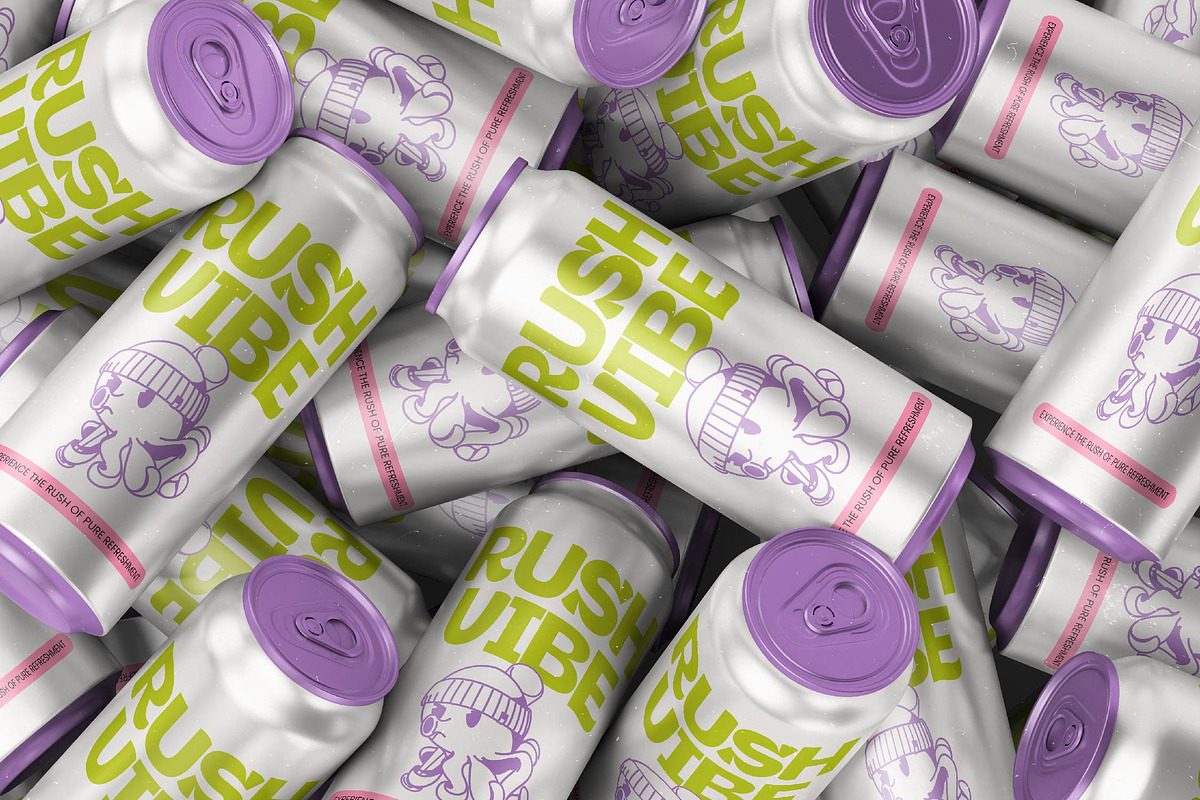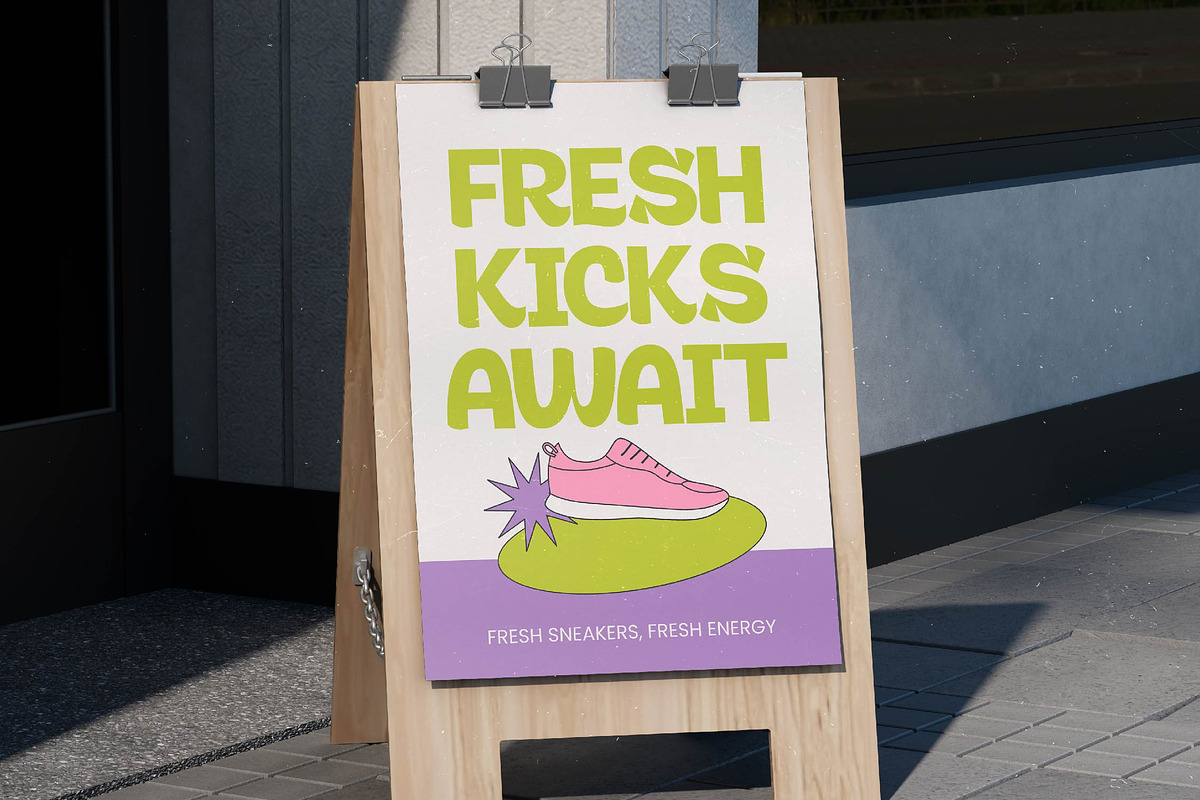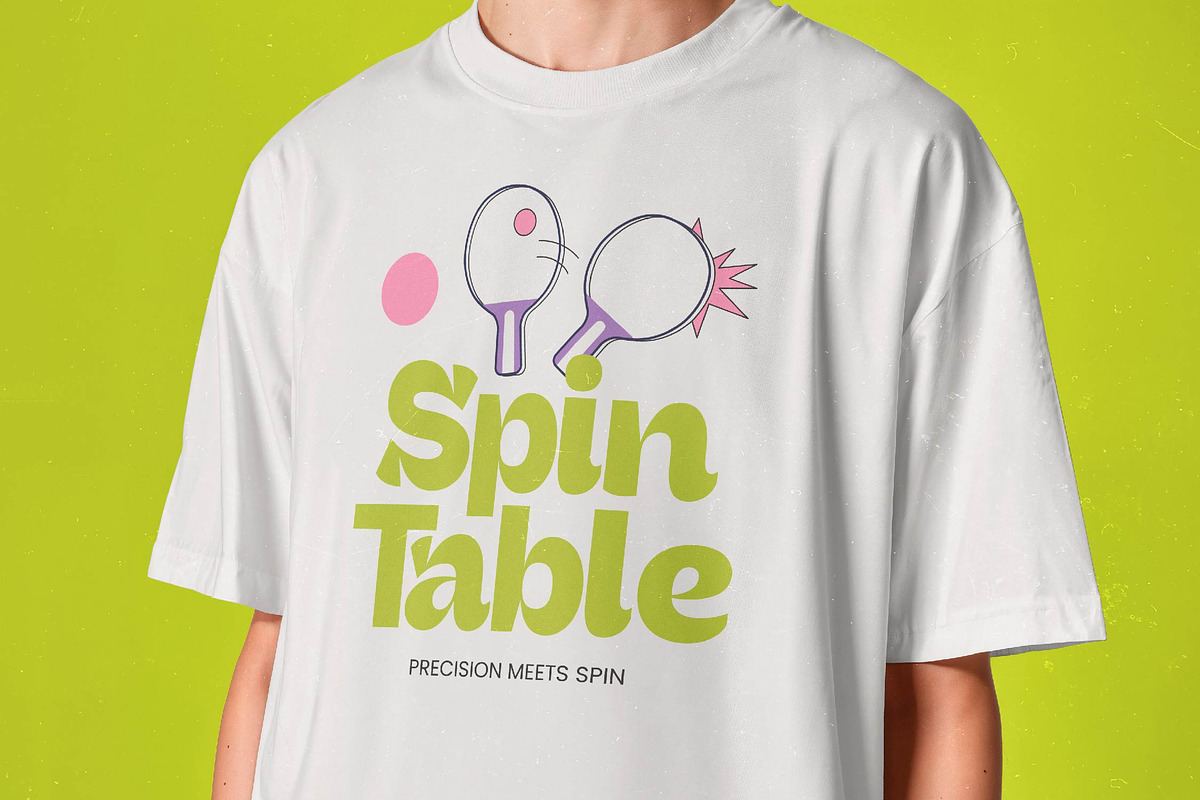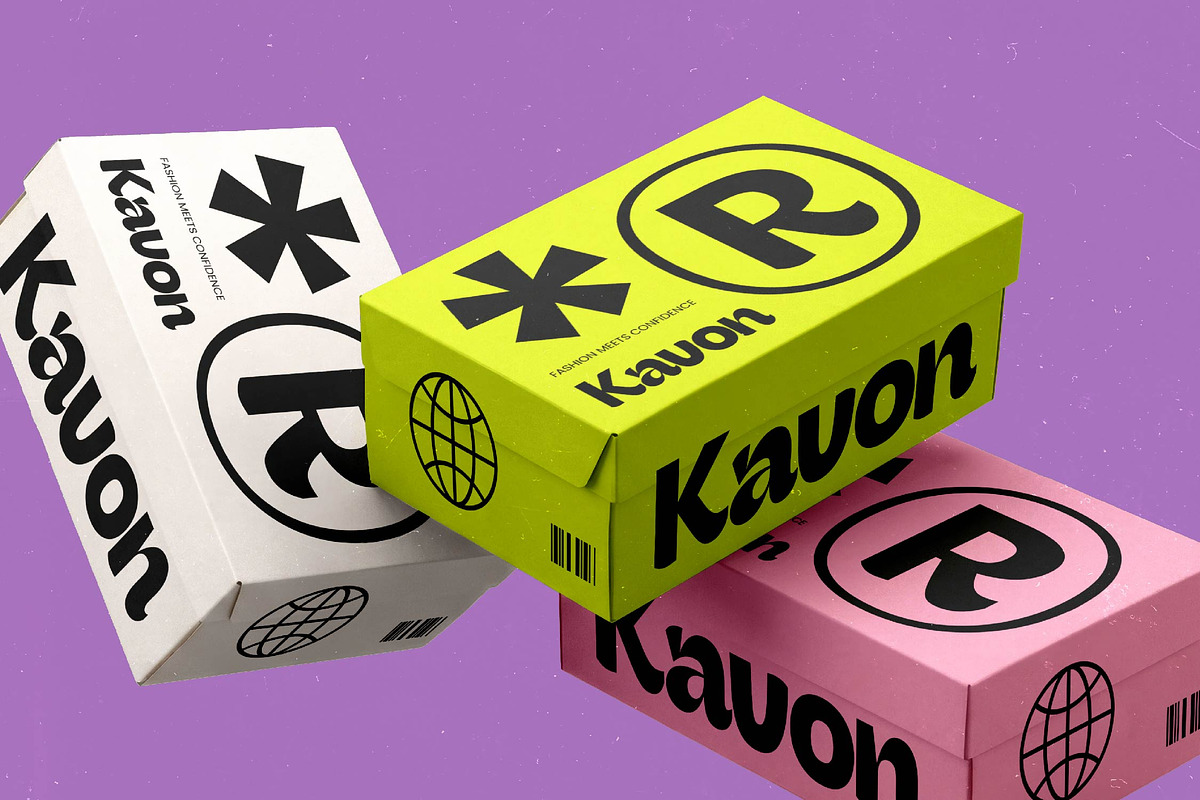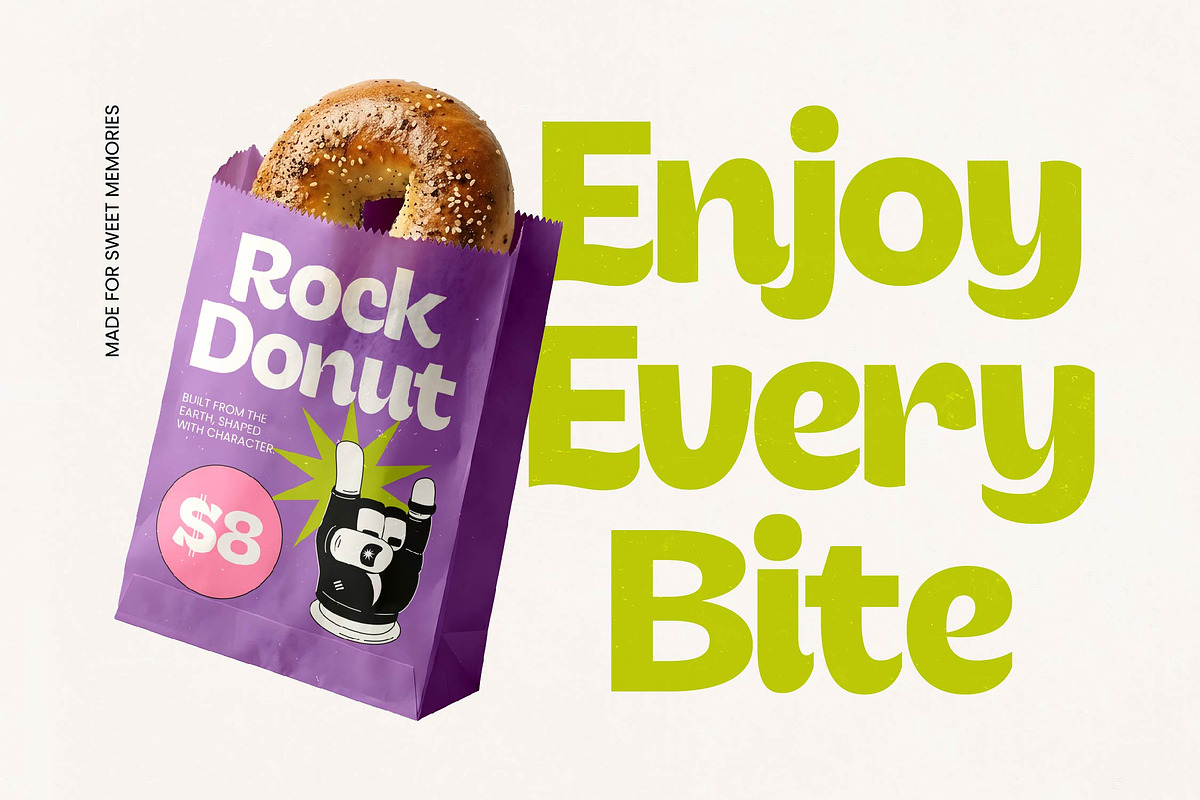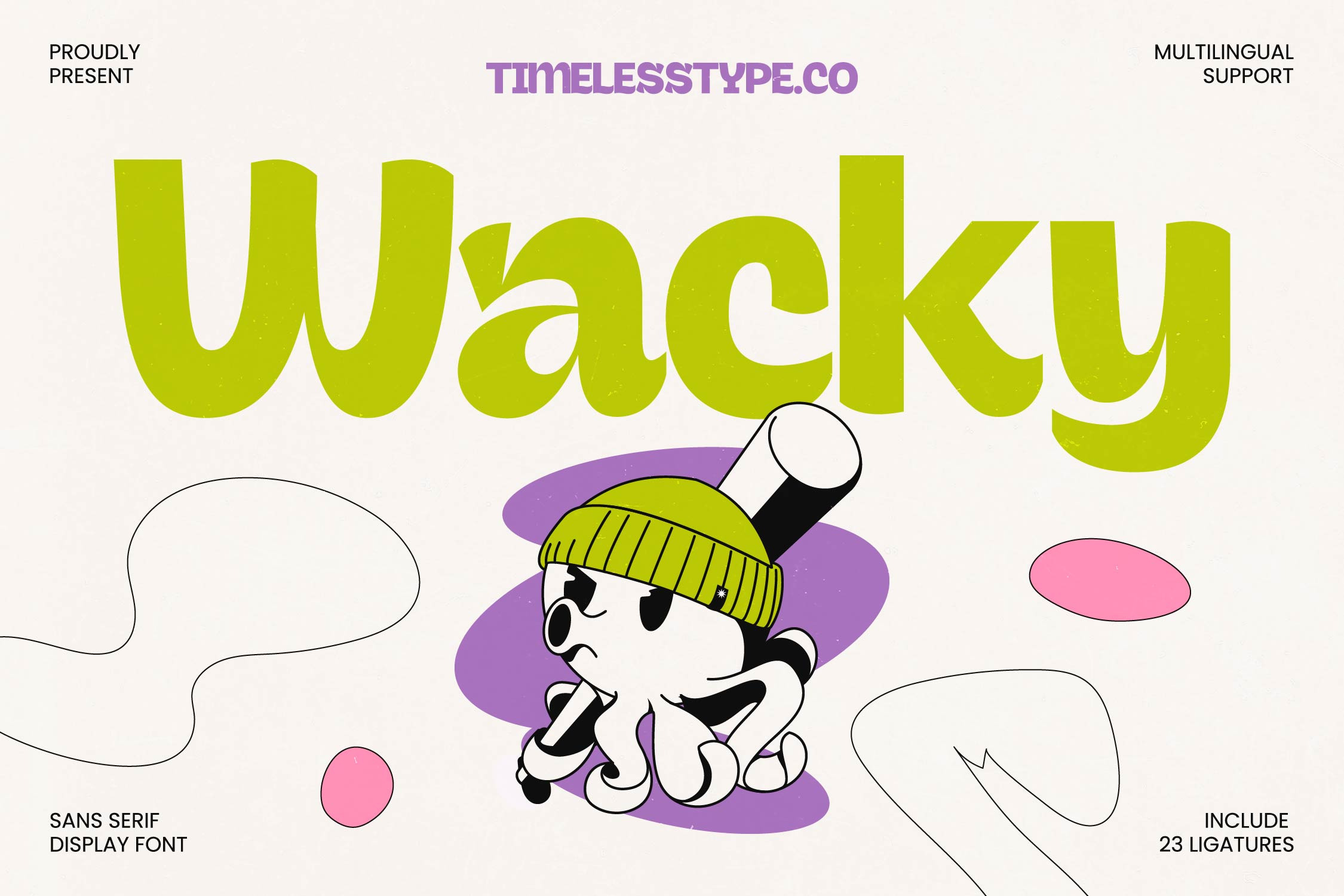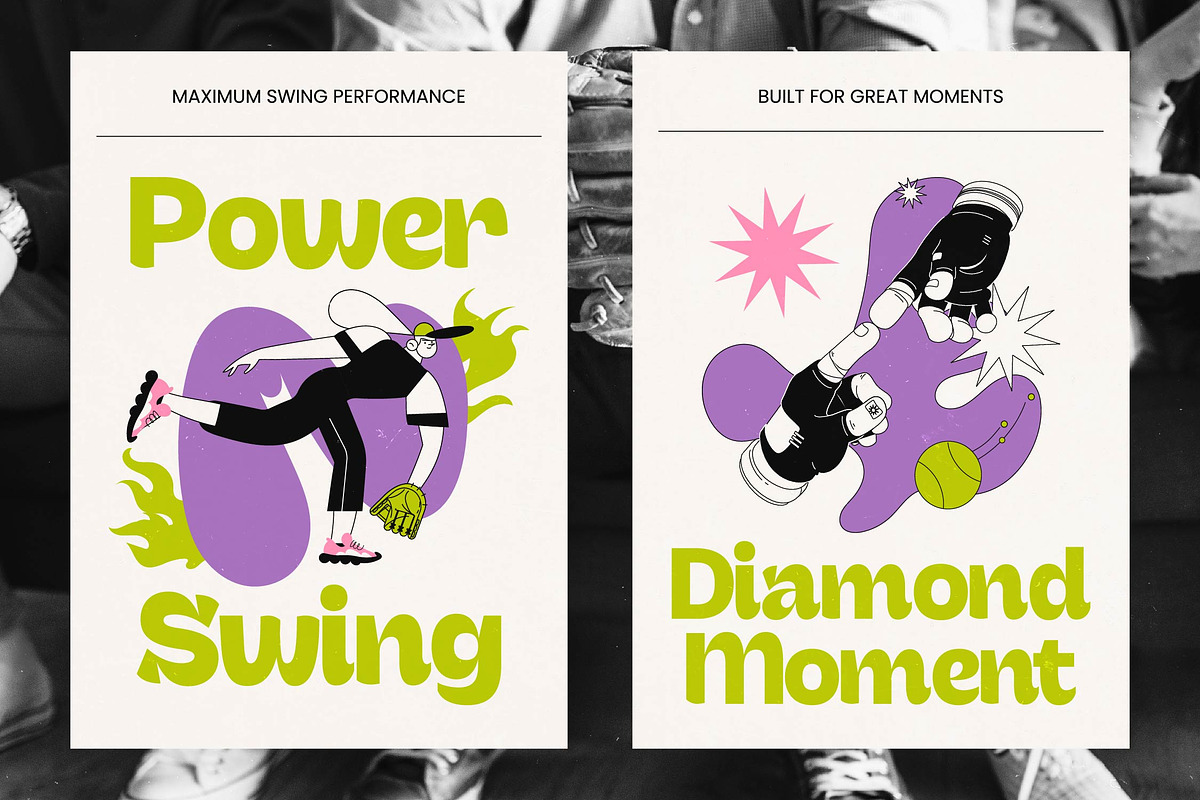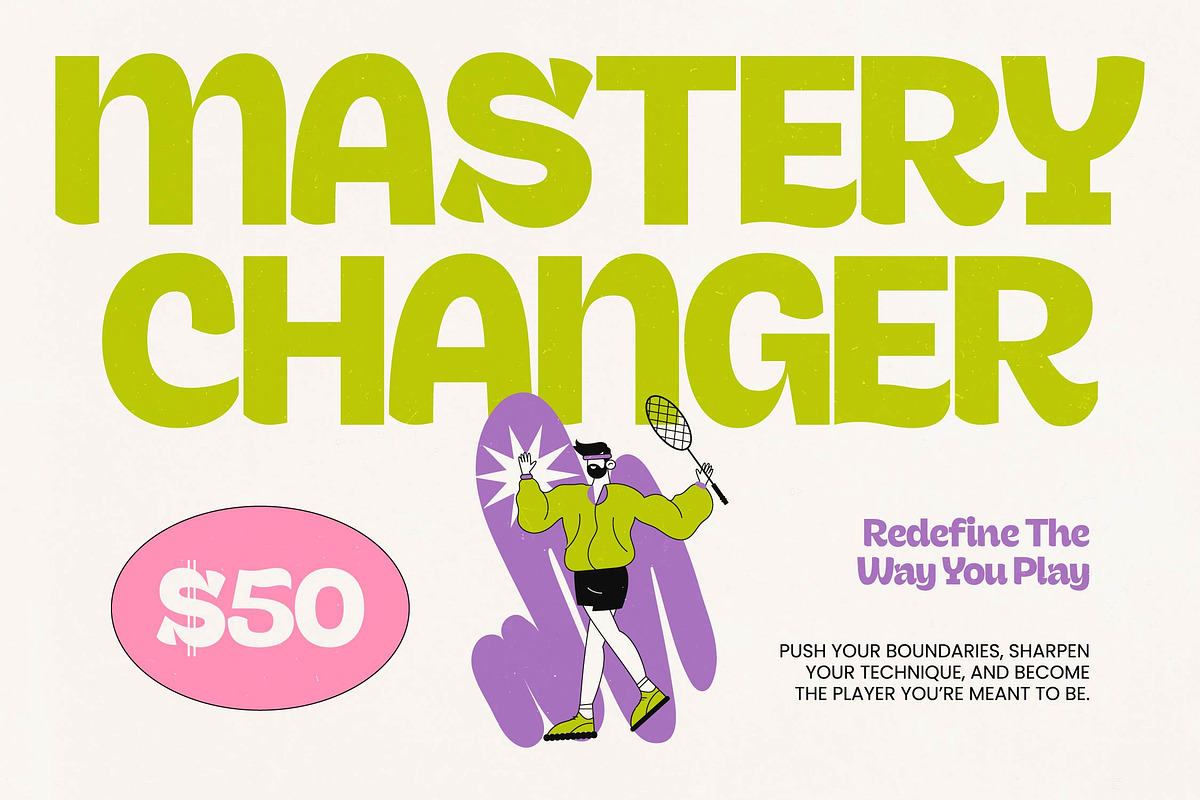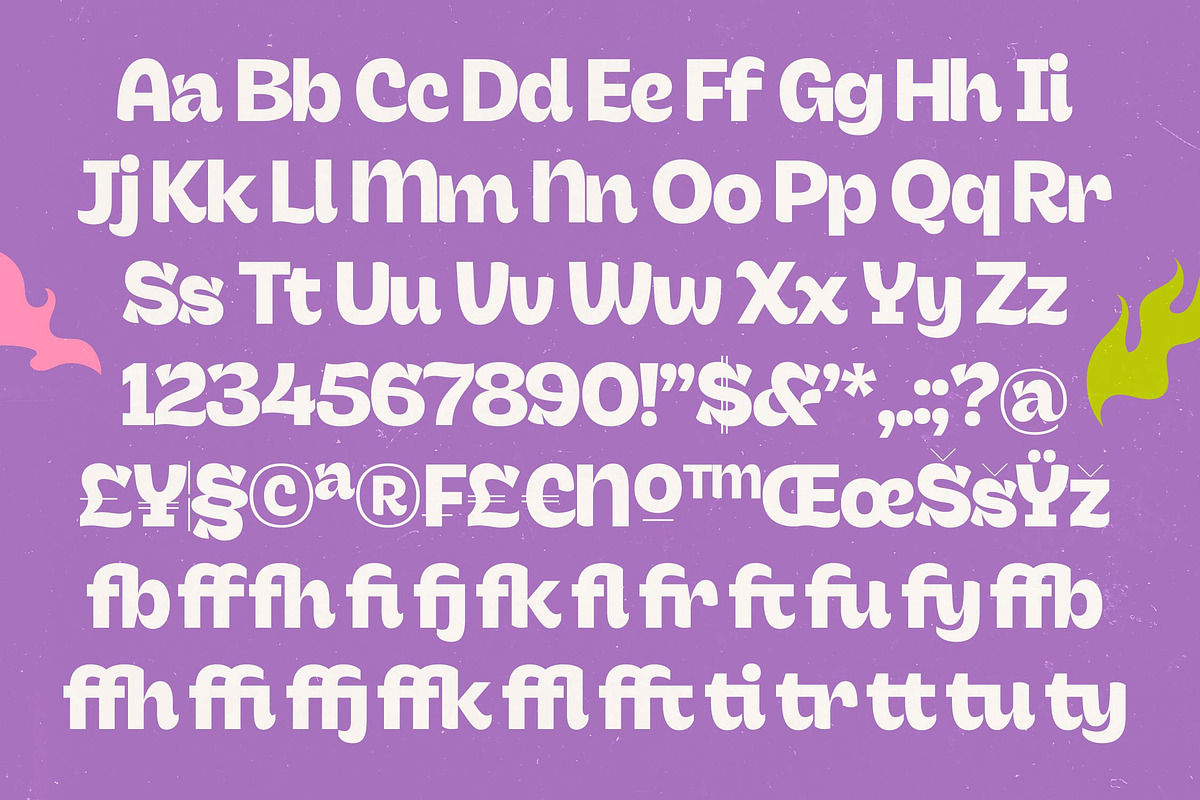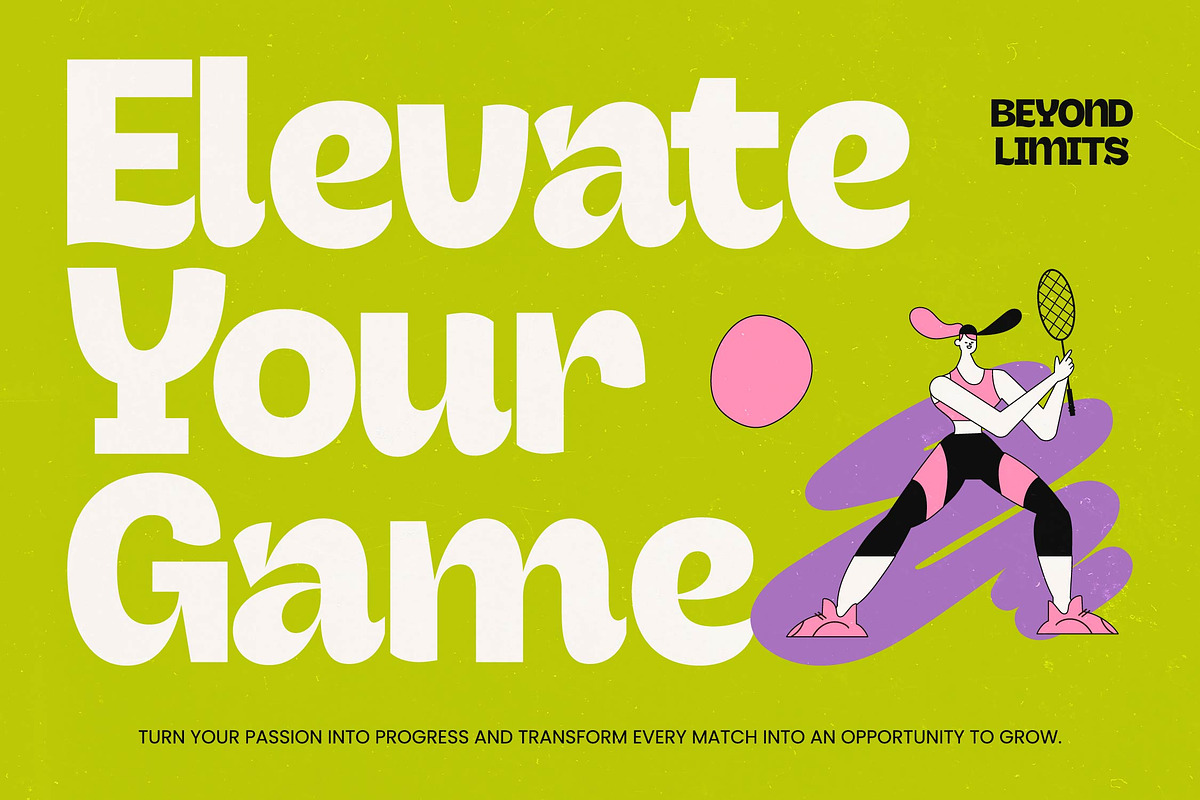
Wacky Sans Serif Display Font
Wacky - Sans Serif Display Font , Embrace the unexpected with Wacky, a font that turns every letter into a celebration of creativity and joy. This typeface is designed to break the rules of conventional design, bringing a burst of energetic personality to your next big project.
Inspired by the bouncy, fluid movements of early rubber hose animation and the bold, expressive energy of vintage street art, this font captures a sense of nostalgia with a contemporary twist. It reflects a world where every curve tells a story and every sharp edge adds a touch of rebellion.
Exuding a charismatic charm that demands attention, this typeface delivers a powerful modern serif display feel despite its sans-serif roots, offering a sense of luxury typography through its unique weight distribution. It stands out as a high-contrast serif alternative that provides an editorial font quality, ensuring a lasting branding impact across all media.
As designers lean into the modern serif trend for more expressive layouts, this font bridges the gap between classic structure and playful experimentation. It is perfectly aligned with the rise of editorial display fonts that prioritize personality, making it a staple for anyone looking for character-driven typography.
This versatile typeface is the ultimate tool for logo design and high-energy branding campaigns that need to stand out from the crowd. From bold editorial layouts and vibrant packaging to unexpected wedding stationery or avant-garde fashion lookbooks, it adapts to your creative vision with ease.
Unlock a world of creative possibilities with 23 unique ligatures that allow for custom-looking wordmarks and fluid connections. The set also includes extensive multilingual support and international characters, while additional alternates, swashes, and special glyphs provide the flexibility needed for global design projects.